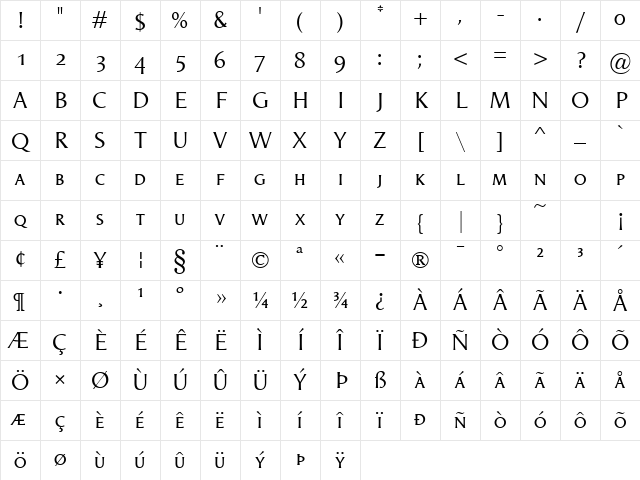
Odense SmallCaps Regular Free Font
Odense SmallCaps Regular
Complete Odense SmallCaps Regular glyph index. Displaying only characters natively supported by Odense SmallCaps Regular font.
Design Context for Odense SmallCaps
Odense SmallCaps is a composed and adaptable typeface that performs quietly and consistently across a wide range of design contexts.